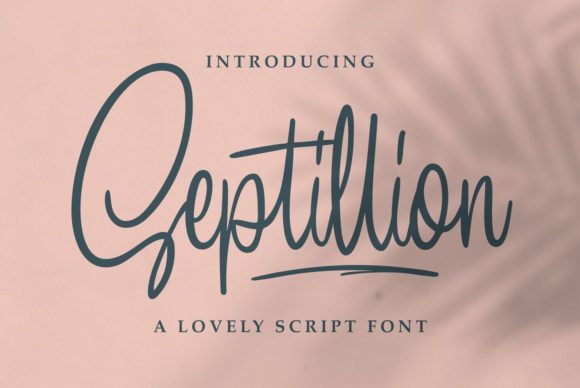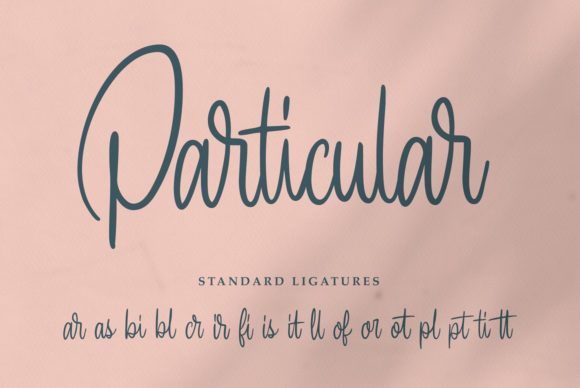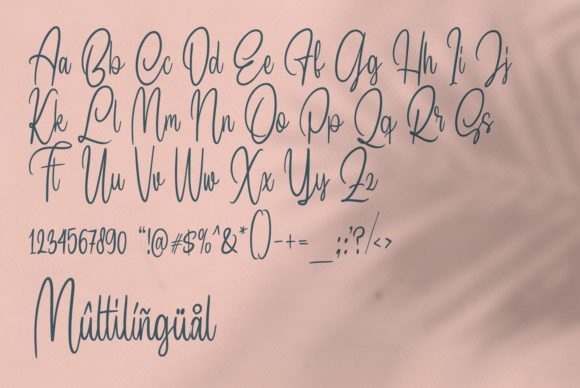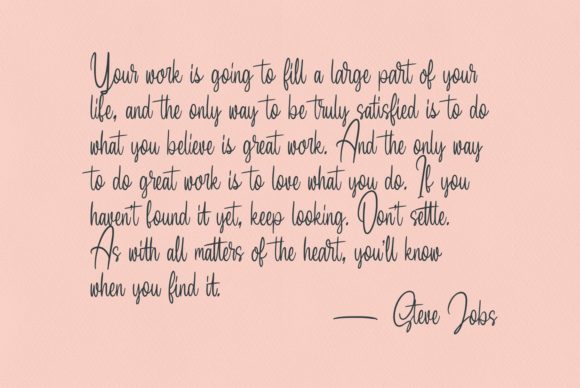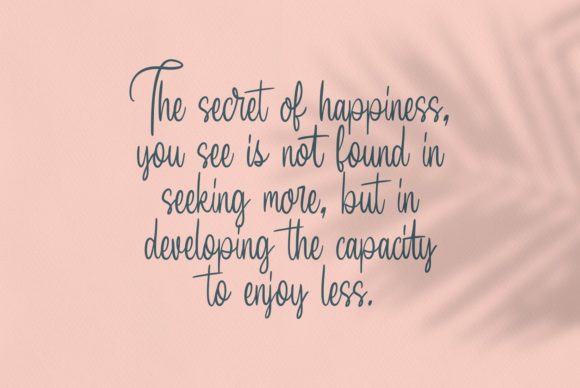
Septillion Font
About Septillion Font
Septillion is a relaxed and casual handwritten font. With beautiful, round letters and a flowing style, this font will look amazing on a variety of designs. Fall in love with its incredibly versatile style and use it to create gorgeous wedding invitations, beautiful stationary art, eye-catching social media posts, and much more!